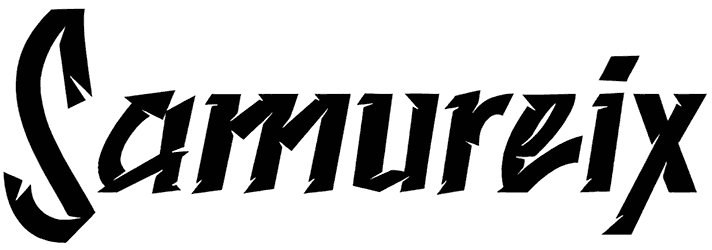
Samureix Font
A sharp font, such as Samureix, would easily boost the visibility of your graphic content by adding a sense of fierce, buzz, excitement, and vivacity to it. All characters of this samurai font are crafted in two styles, thus you have a wide selection range for bringing your creative ideas, including movie posters, video game brochures, digital banners, or web pages to real life.